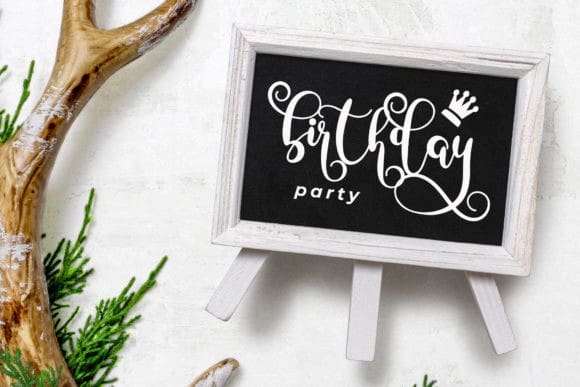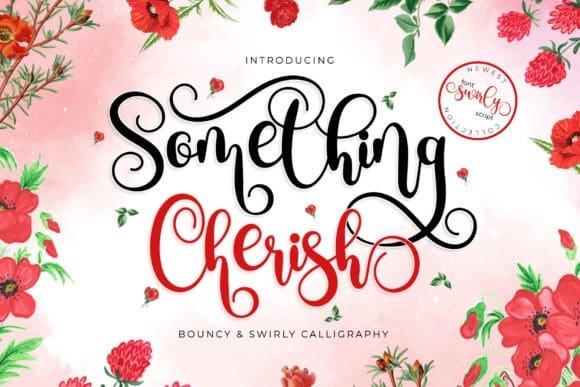
Something Cherish Font
Something Cherish Font is a romantic and sweet calligraphy typeface with characters that dance along the baseline. It will add a luxury spark to any design project that you wish to create! This font is PUA encoded which means you can access all of the amazing glyphs and ligatures with ease!